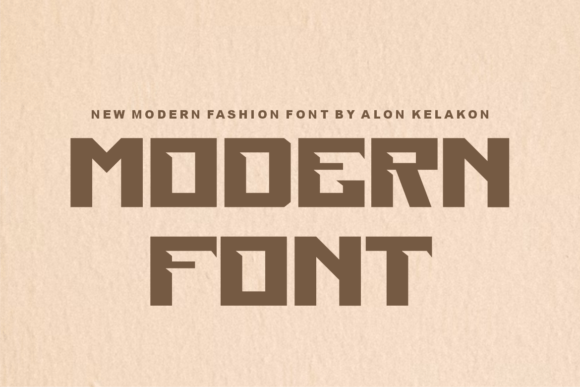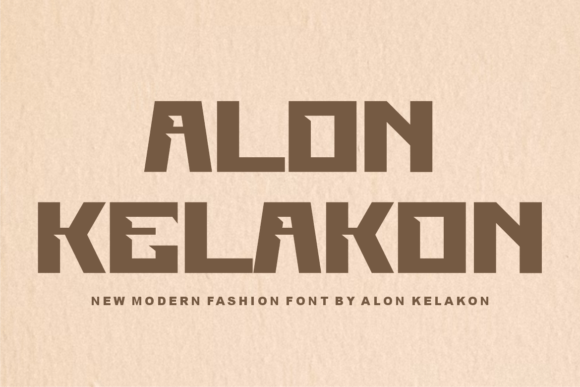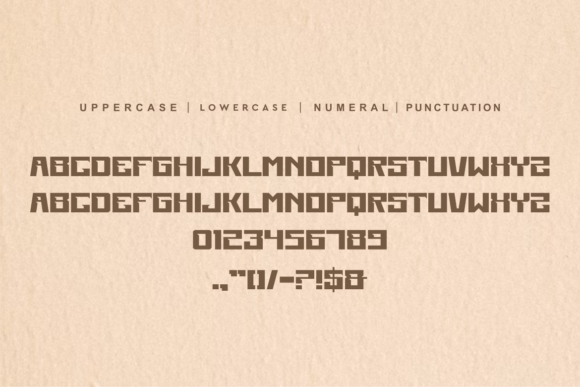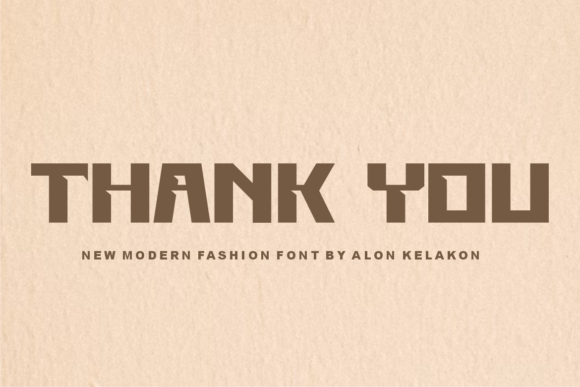
Introducing Brugek Font: The Ultimate Sans Serif for Modern Designs
In the world of design, typography plays a crucial role in conveying messages, evoking emotions, and creating visual identities. For designers and crafters, finding the perfect font can be a daunting task. However, if you’re looking for a simple yet modern sans serif font, look no further than Brugek Font. In this article, we’ll explore the features, benefits, and uses of Brugek Font, and why it’s becoming a go-to choice for designers and crafters alike.
What is Brugek Font?
Brugek Font is a clean and contemporary sans serif font designed to elevate your designs. Its simplicity and modernity make it an ideal choice for a wide range of applications, from labeling and clothing to movie scenes, posters, movie titles, gigs, album covers, logos, and more. Brugek Font is versatile, legible, and highly customizable, making it perfect for designers and crafters who want to add a touch of sophistication to their work.
Key Features of Brugek Font
- Simple and Modern Design: Brugek Font boasts a sleek and minimalist design, making it perfect for modern designs that require a clean and elegant look.
- Sans Serif: The font’s sans serif design ensures that your text remains legible and easy to read, even at small sizes.
- Highly Legible: Brugek Font is designed to be highly legible, making it suitable for body text, headings, and titles.
- Customizable: The font is highly customizable, allowing you to adjust the size, color, and style to fit your design needs.
- Wide Range of Applications: Brugek Font can be used for a variety of design projects, including labeling, clothing, movie scenes, posters, movie titles, gigs, album covers, logos, and more.
Benefits of Using Brugek Font
So, why choose Brugek Font for your design projects? Here are some benefits that make it an attractive choice:
- Save Time: With Brugek Font, you can save time and effort in finding the perfect font for your design project.
- Elegant and Sophisticated Look: Brugek Font adds a touch of elegance and sophistication to your designs, making them stand out from the crowd.
- Versatility: The font’s versatility ensures that it can be used for a wide range of design projects, from print to digital media.
- Easy to Read: Brugek Font’s high legibility ensures that your text is easy to read, even at small sizes.
Uses of Brugek Font
Brugek Font is a versatile font that can be used for a variety of design projects, including:
- Labeling: Use Brugek Font for labeling products, files, and folders.
- Clothing: Add a touch of modernity to your clothing designs with Brugek Font.
- Movie Scenes: Use Brugek Font for movie scenes, titles, and credits.
- Posters: Create eye-catching posters with Brugek Font.
- Movie Titles: Use Brugek Font for movie titles, taglines, and credits.
- Gigs: Add a professional touch to your gig posters and flyers with Brugek Font.
- Album Covers: Use Brugek Font for album covers, music tracks, and playlists.
- Logos: Create modern and sleek logos with Brugek Font.
In conclusion, Brugek Font is a simple yet modern sans serif font that’s perfect for designers and crafters looking for a versatile and elegant font. Its simplicity, legibility, and customizability make it an ideal choice for a wide range of design projects. Whether you’re working on labeling, clothing, movie scenes, posters, movie titles, gigs, album covers, logos, or more, Brugek Font is sure to elevate your designs to the next level.